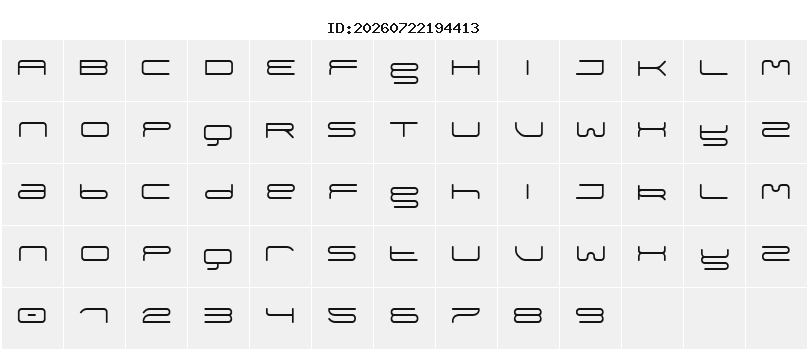
megathin Preview
• Font Name: megathin
• Font ID: Macromedia Fontographer 4.1.4 megathin
• Full Font Name: megathin
• Version: Macromedia Fontographer 4.1.4 02.03.2005
• PostScript Name: Megathin
About megathin.ttf
megathin.ttf is a modern, elegant sans-serif font designed for ultimate readability and visual harmony. Perfect for branding, headlines, web design, and print materials.